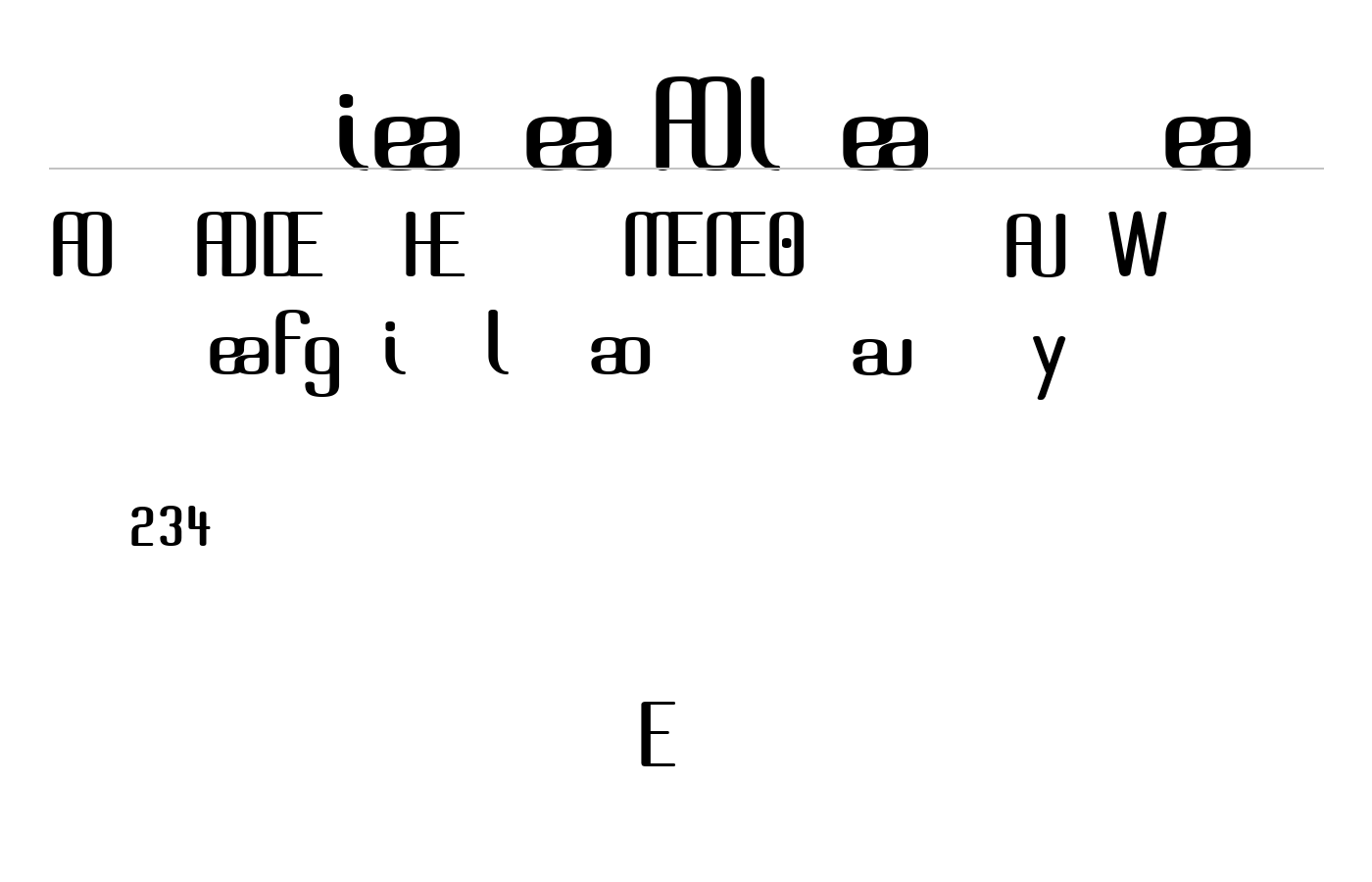
Brassiere Alternates is a condensed sans serif font with a modern, geometric feel characterized by tall, narrow letterforms and minimal contrast between strokes. Its unique, somewhat experimental shapes and tight spacing give it a stylish and avant-garde personality, ideal for fashion, editorial headlines, and branding that seeks a contemporary, distinctive edge. This font works best in display settings where its unusual design can make a bold statement without losing legibility.
Brassiere Alternates Font
About Brassiere Alternates Font